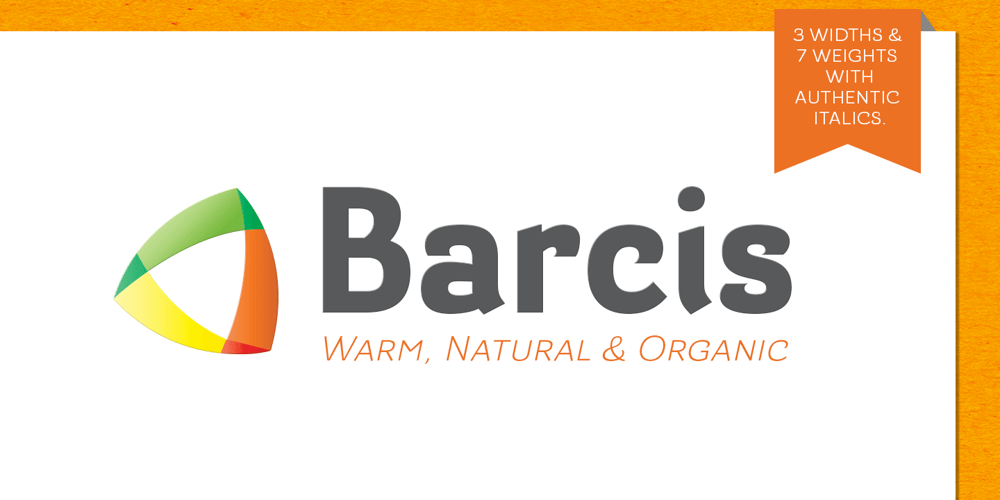
Barcis
Barcis font
Barcis Font Family was designed by Jeremy Dooley and published by insigne. Barcis contains 47 styles and family package options. Take your reader far away to a tropical morning, where the inviting aroma of a fresh roast introduces them to a gentle breeze and the first, warm light of day. Take them there with Barcis. This organic face with its tall x-height and neo-humanist attributes shows its free spirit through unique terminals, calligraphy-inspired strokes, and a rich variety of OpenType alternates All insigne fonts are loaded with OpenType options. Barcis is geared up for pro typography. The font features many numeral sets, with fractions, old-style figures, superiors and inferiors. OpenType-capable programs like Quark or the Adobe suite allow you to quickly change ligatures and alternates. You can see these options shown in the .pdf brochure. Barcis also features the glyphs to aid a variety of languages, together with Central, Eastern and Western European languages. In all, Barcis supports around forty languages that utilize the Latin script, earning Barcis the pick for for multi-lingual publications and packaging. Barcis features three different widths and seven weights from exceptional Light-weight to dense Black. Each of these individual fonts offers its own authentic italics and alternate glyphs as well. With its high versatility, Barcis is without a doubt an amazing titling font, a great choice for journals, a solid option for web use, or even for clearly defining your mark in logotype. Bring Barcis into your library, and use it to carry your audience away.